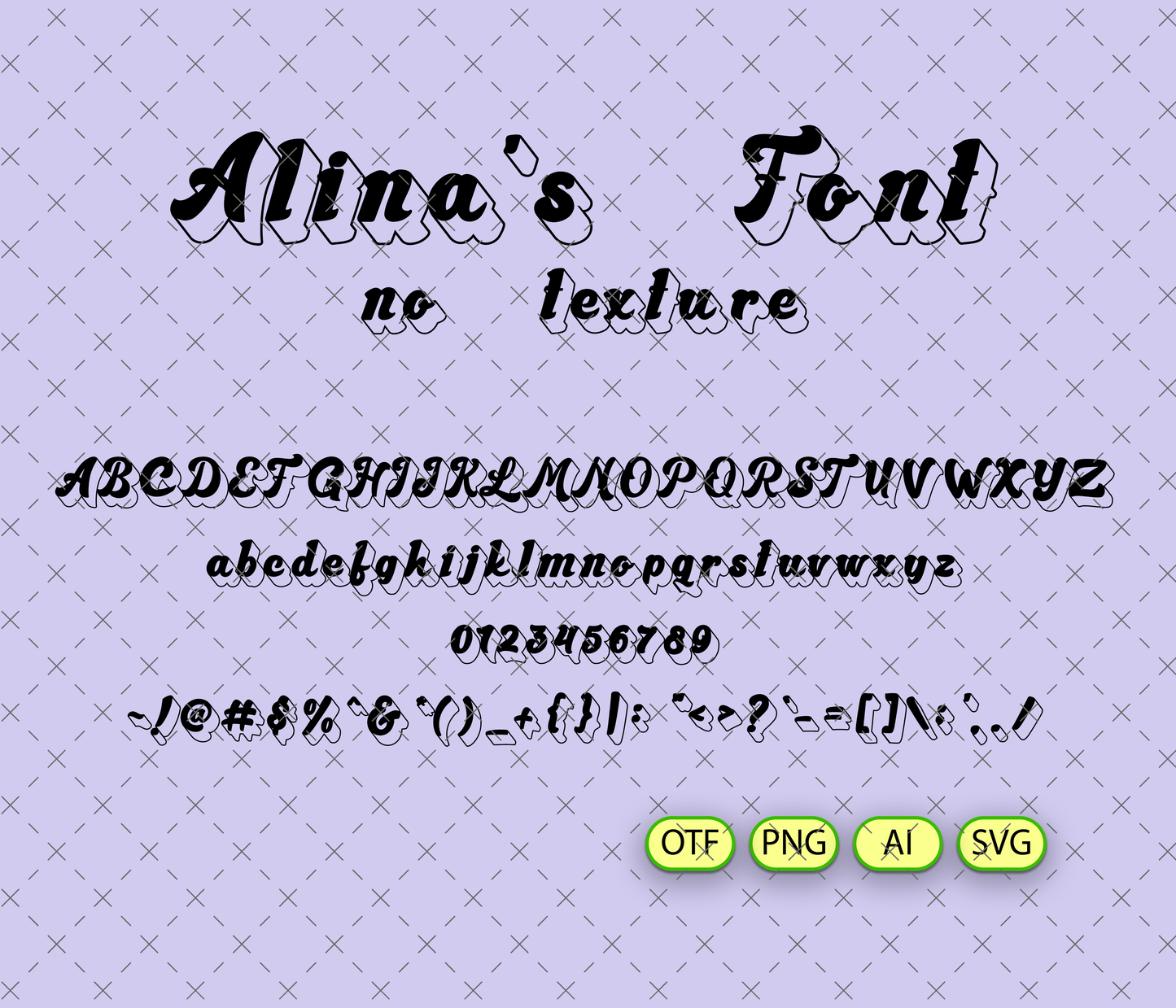
Retro Road Trip Font
Step into the breezy freedom of open highway adventure and seventies van culture wanderlust with our Retro Road Trip Font, capturing the essence of sunbaked asphalt journeys and free-spirited cross-country discovery. Perfect for travel enthusiast communities, adventure lifestyle designers, road culture media producers, and vintage wanderlust specialists, this font brings the bold, free-roaming character of legendary seventies highway narrative stories to your projects. Create eye-catching invitations, commercial goods, or web content with the sun-drenched presence of open road and painted van storytelling.
Clean Adventurous Typography for Road Culture Design & Seventies Wanderlust Projects
Our Retro Road Trip Font features bold, freely crafted letterforms with crisp, editable outlines reflecting the world of sun-drenched open highways and legendary seventies van culture wonder. Unlike the textured version, this clean font lets you apply your own colors, effects, and finishes — total creative freedom.
- Event Promotions: Craft eye-catching invitations, posters, and banners for road trip themed celebrations, vintage van culture gatherings, and free-spirited adventure events that radiate the breezy spirit of legendary seventies highway entertainment
- Merchandise Design: Perfect for apparel, wall prints, adhesive graphics, and collectibles that showcase the sun-drenched aesthetic of open highway and painted van culture themes — customize colors to match any palette
- Digital Media: Energize websites, content channels, and social platforms with adventurous header designs and imagery that express the free-roaming wonder of legendary seventies road culture eras
- Creative Content: Add signature wanderlust flair to travel illustrations, highway artwork, and imaginative projects inspired by beloved open road and van culture chronicles
- Personal Projects: Stir free-spirited adventure into memory albums, handcrafted items, and living space decorations inspired by the world of legendary seventies road trip and van culture characters
Our font pays tribute to the world of open highway wonder and generation-spanning seventies van culture wanderlust, empowering your projects with its bold and free-roaming character. Whether crafting travel-themed materials, designing road culture products, or adding a seventies highway touch to personal projects, this font communicates the timeless essence of retro road trip magic. Ready to roll free-spirited adventure into your creations? This font is your key to attention-grabbing, impactful design.